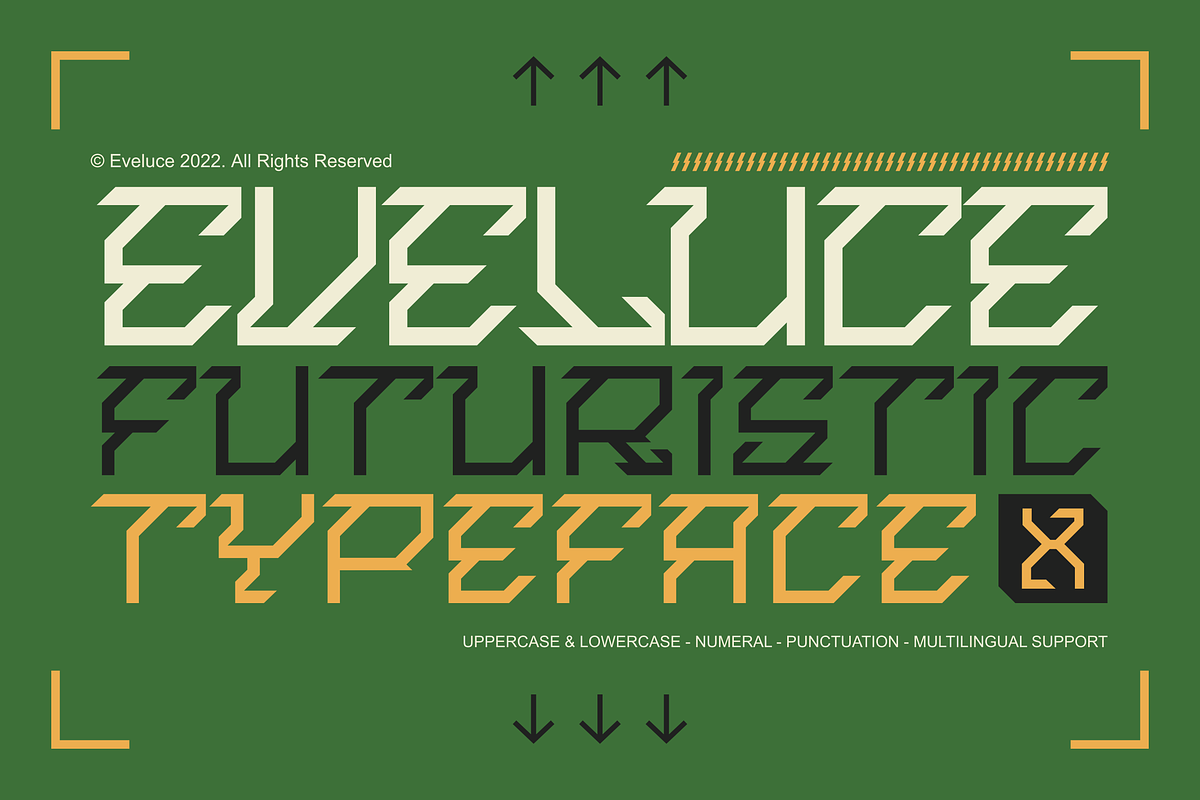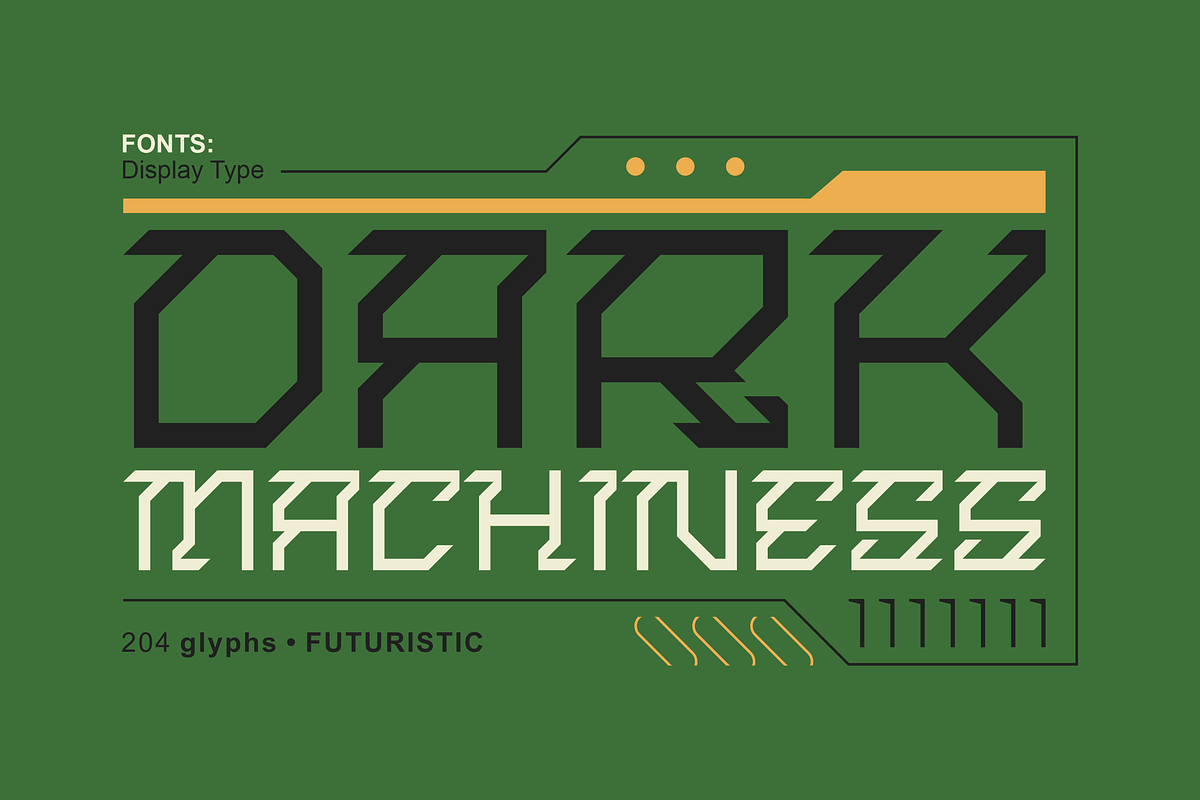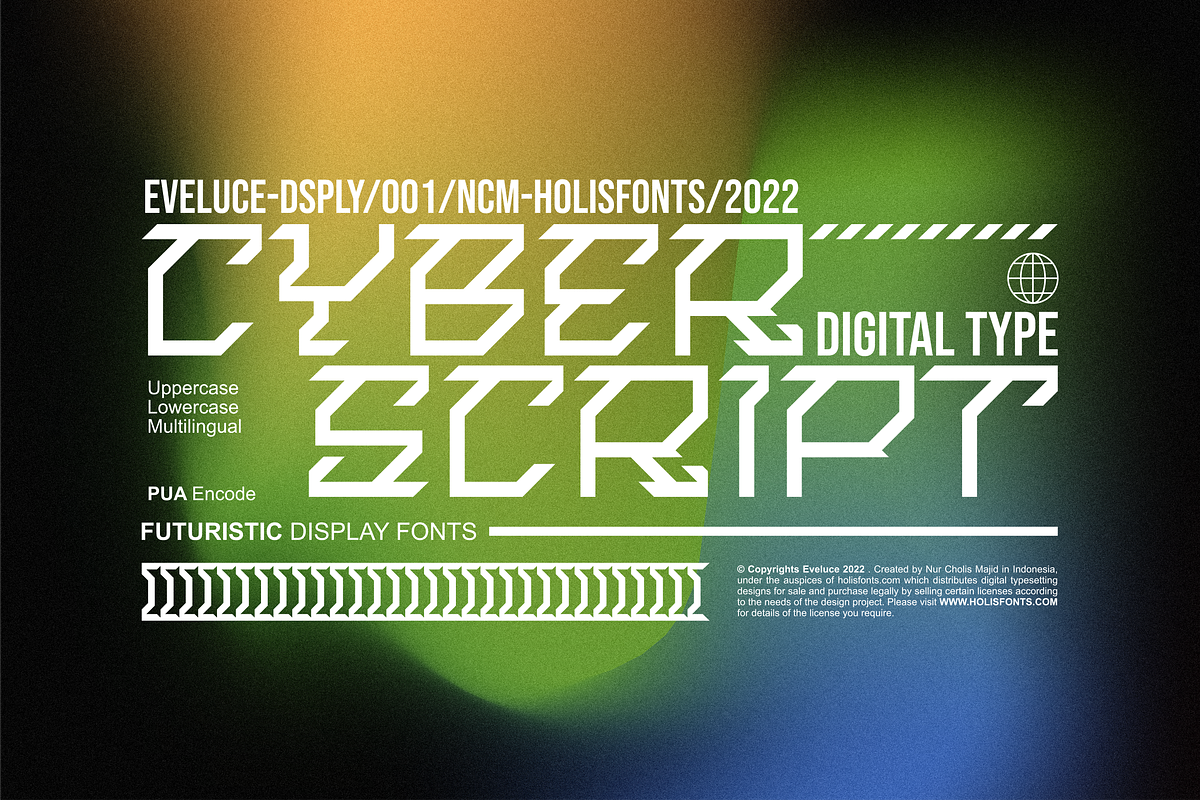
Eveluce Futuristic Font
Eveluce is a futuristic font inspired by mecha robots that has the impression of an electronic machine that is assertive, energetic and seems to have great power, just like a robot that has power this font will also give energy power to your design or illustration.
- Numeral